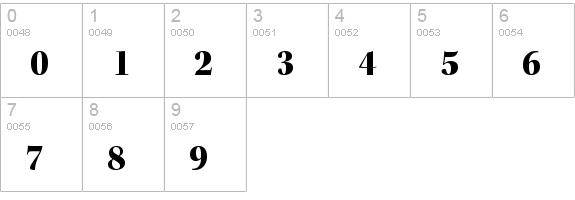
Kepler Std Black Semicondensed Subhead Font Details
Kepler Std Black Semicondensed Subhead is a maximum-weight, dramatic variant in the Kepler typeface family \xE2\x80\x94 well suited to maximum-impact headlines, posters, and packaging.
Kepler Std Black Semicondensed Subhead font is a remarkable typeface that exudes elegance and sophistication. With its bold and condensed design, this font commands attention and makes a striking impression. Whether used for headlines, subheadings, or any other display purposes, Kepler Std Black Semicondensed Subhead font adds a touch of modernity and professionalism to any design project. This font boasts a perfect balance of strong lines and subtle curves, resulting in a harmonious and visually appealing aesthetic. Its meticulously crafted letterforms showcase a high level of craftsmanship, making it a standout choice for designers who value quality and precision. One of the best features of Kepler Std Black Semicondensed Subhead font is that it is freely available to download at FontsMarket.com. This means that designers, creatives, and enthusiasts can access this exceptional font without any cost, making it an ideal option for those working within budget constraints or simply seeking quality resources without breaking the bank. With its versatility and timeless appeal, Kepler Std Black Semicondensed Subhead font is suitable for a wide range of design applications. Its bold presence ensures that any message or information it conveys is delivered with impact and clarity. Whether used in print or digital media, this font guarantees legibility and readability, even at smaller sizes. In conclusion, Kepler Std Black Semicondensed Subhead font is a powerful and visually striking typeface that will elevate any design project. Its freely available nature at FontsMarket.com makes it an accessible and valuable resource for designers looking to enhance their work with a touch of sophistication and style.